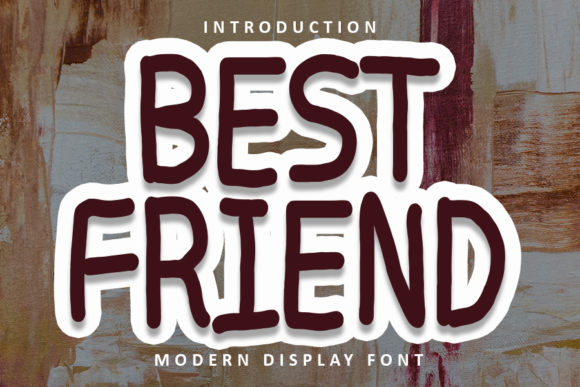
Best Friend Font: A Simple, Trendy Display Choice
A Font That Speaks Volumes Without Saying Much
When it comes to typography, the right choice can make or break a design. Best Friend is a display font that balances simplicity with a touch of personality, making it a versatile option for a wide range of creative and professional projects. Its clean lines and approachable style offer a modern yet timeless appeal, perfect for those who want to add character without overwhelming their audience.Best Friend isnât just another trendy fontâitâs a thoughtful design that works well in both digital and print formats. With its rounded edges and friendly curves, it feels like a conversation starter rather than a cold, formal typeface. This makes it ideal for branding efforts that aim to connect with audiences on a more personal level.
Where Best Friend Shines
Whether you're designing a logo, creating social media graphics, or working on editorial layouts, Best Friend has a place. Its visual characteristicsâclean, modern, and slightly playfulâmake it particularly effective in areas where a bold statement is needed but readability remains key.- Branding: Best Friend is great for logos, taglines, and brand assets that need to stand out while maintaining clarity.
- Digital Design: It works well in web banners, email headers, and social media posts due to its legibility at smaller sizes.
- Print Media: From greeting cards to packaging, this font adds a polished feel without being too rigid.
- Editorial Work: In magazines or blogs, Best Friend can be used as a headline font to draw attention without overshadowing the content.
- Crafting: For DIY projects, invitations, or handmade items, its friendly aesthetic aligns perfectly with the creative spirit.
One of the most appealing aspects of Best Friend is its adaptability. It doesnât demand much from the designer, which means it can fit into a variety of design ecosystems without requiring constant adjustments. This flexibility is especially valuable for small businesses or independent creators who may not have a dedicated design team.
How Best Friend Influences Design
Typography plays a crucial role in shaping how an audience perceives a brand or message. Best Friend contributes to this by offering a balance between professionalism and approachability. Its use can enhance brand recognition, especially when paired with complementary fonts that support its visual story.The font's readability at different sizes ensures that it maintains its integrity across various platforms. This is particularly important in digital design, where text often needs to be viewed on multiple devices. Whether it's a website header or a mobile app interface, Best Friend delivers consistent performance without sacrificing style.
Choosing the Right Font: A Practical Guide
Selecting the right font for a project involves more than just picking something that looks good. It requires evaluating how the font aligns with the overall message, audience, and platform. Here are some practical considerations when choosing Best Friend or any other display font:- Project Fit: Does the font match the tone and purpose of your project? Best Friend is best suited for designs that aim to be friendly, modern, and slightly whimsical.
- Font Pairing: Consider how Best Friend interacts with other fonts. It pairs well with sans serif fonts for contrast and serif fonts for added sophistication.
- Readability: Always test the font at different sizes and on different backgrounds to ensure it remains legible.
- Consistency: Use the same font consistently across all brand materials to reinforce recognition and professionalism.
For designers and entrepreneurs looking to build a cohesive brand identity, Best Friend offers a reliable and stylish foundation. Its versatility allows it to be used in a wide range of applicationsâfrom simple invitations to complex marketing campaignsâwithout losing its core appeal.
Real-World Applications
In practice, Best Friend has been successfully used in several creative contexts. For instance, a local bakery might use it for signage and packaging to create a warm, inviting atmosphere. A blogger could incorporate it into their blog header to add a personal touch. Even a small business owner can benefit from its clean and modern look in their online store or social media visuals.Its ability to work well in both digital and print environments makes it a favorite among content creators and marketers. Whether it's a product description, a social media post, or a newsletter, Best Friend adds a layer of personality that helps the message resonate more deeply with the audience.